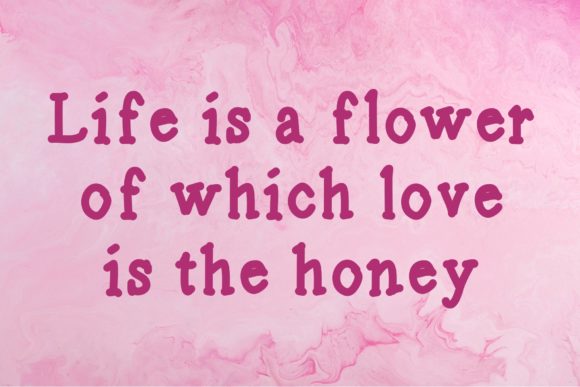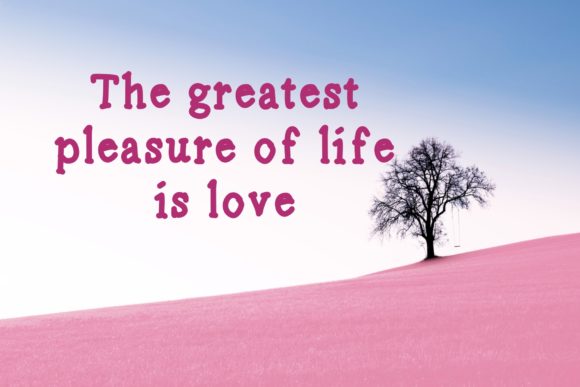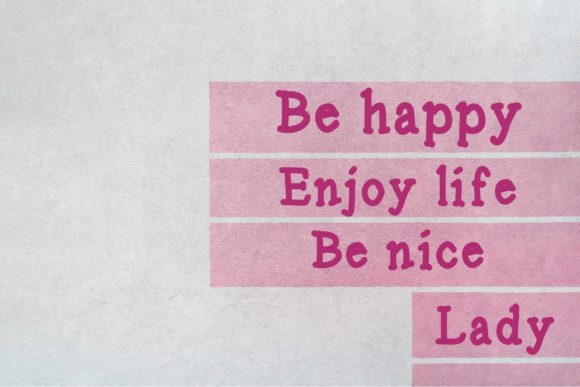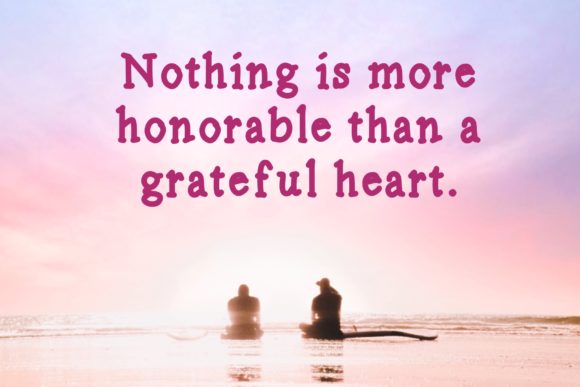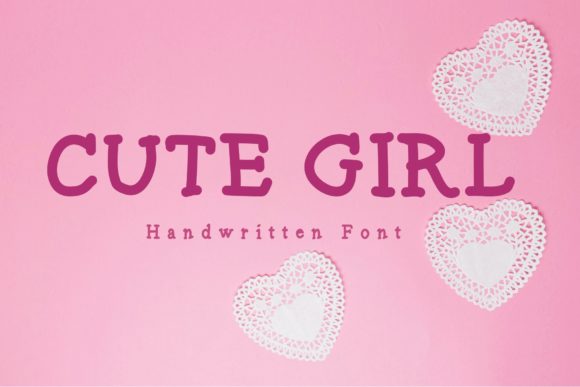
Cute Girl Font: The Sweet and Bold Handwritten Font for Creative Projects
Are you a designer, crafter, or DIY enthusiast looking for a font that can add a touch of sweetness and boldness to your creative projects? Look no further than the Cute Girl Font! This beautiful handwritten font is perfect for a variety of applications, from Instagram posts and stories to calligraphy scripts and DIY projects.
What is Cute Girl Font?
Cute Girl Font is a sweet and bold handwritten font that is designed to turn any creative idea into a true piece of art. With its unique and playful style, this font is sure to capture the attention of your audience and leave a lasting impression. Whether you’re looking for a font for personal or commercial use, Cute Girl Font is the perfect choice.
Features of Cute Girl Font
Cute Girl Font has several features that make it a standout font for designers and crafters. Some of its key features include:
- Sweet and Bold Style: Cute Girl Font has a sweet and bold style that is perfect for creating eye-catching headlines, titles, and text.
- Handwritten: This font has a handwritten feel that gives it a personal and unique touch.
- Versatile: Cute Girl Font can be used for a variety of applications, from Instagram posts and stories to calligraphy scripts and DIY projects.
- Easy to Read: Despite its bold style, Cute Girl Font is easy to read, making it perfect for use in body text and captions.
Uses of Cute Girl Font
Cute Girl Font is a versatile font that can be used for a variety of creative projects. Some of the most popular uses for this font include:
- Instagram Posts and Stories: Add a touch of sweetness and boldness to your Instagram posts and stories with Cute Girl Font.
- Calligraphy Scripts: Use Cute Girl Font to create beautiful calligraphy scripts for DIY projects, such as wedding invitations, greeting cards, and more.
- DIY Projects: Cute Girl Font is perfect for use in DIY projects, such as crafting, scrapbooking, and journaling.
- Graphic Design: This font can also be used in graphic design projects, such as brochures, flyers, and posters.
Tips for Using Cute Girl Font
Here are a few tips for using Cute Girl Font in your creative projects:
- Use it for Headlines and Titles: Cute Girl Font is perfect for use in headlines and titles, where its bold style can really make an impact.
- Pair it with Other Fonts: Experiment with pairing Cute Girl Font with other fonts to create a unique and interesting look.
- Use it in Combination with Images: Cute Girl Font looks great when used in combination with images, such as photographs or illustrations.
- Experiment with Colors: Don’t be afraid to experiment with different colors when using Cute Girl Font. This font looks great in a variety of colors, from bright and bold to soft and pastel.
Cute Girl Font is a sweet and bold handwritten font that is perfect for designers, crafters, and DIY enthusiasts. With its unique and playful style, this font is sure to add a touch of sweetness and boldness to any creative project. Whether you’re looking for a font for Instagram or calligraphy scripts for DIY projects, Cute Girl Font is the perfect choice. So why wait? Download Cute Girl Font today and start creating your own beautiful and unique projects!